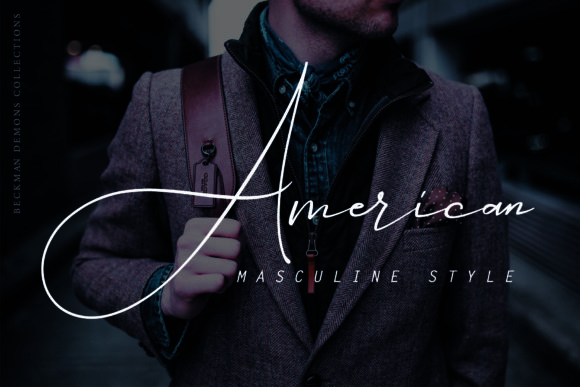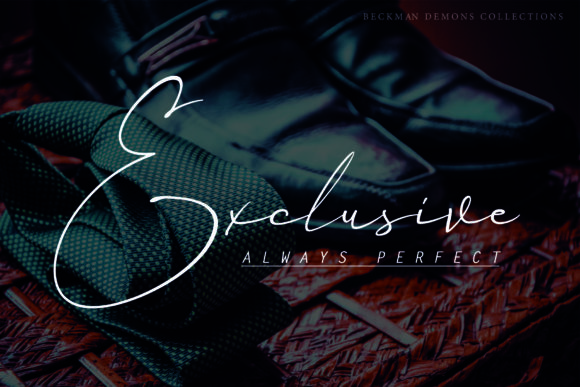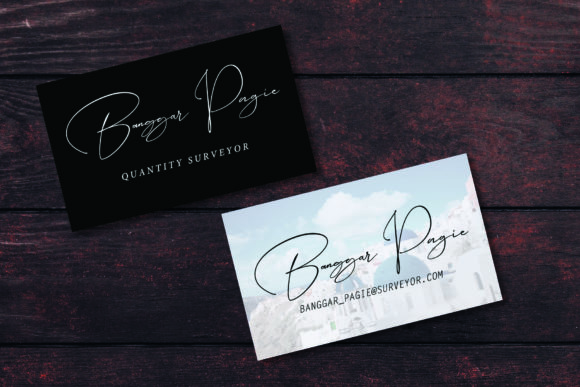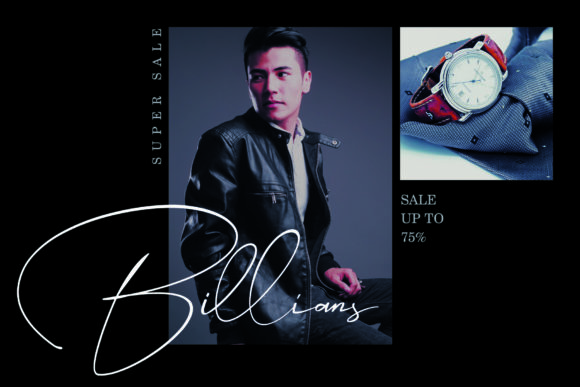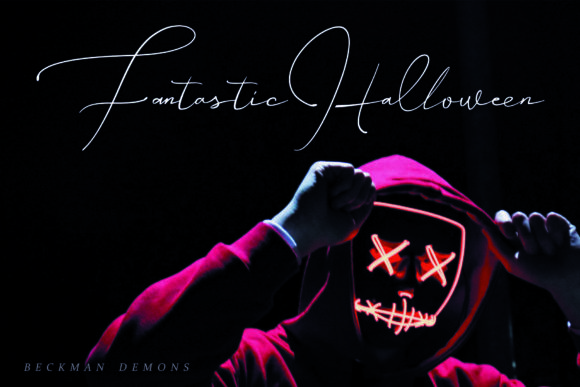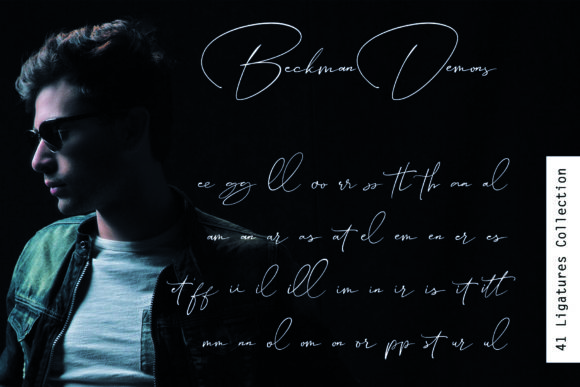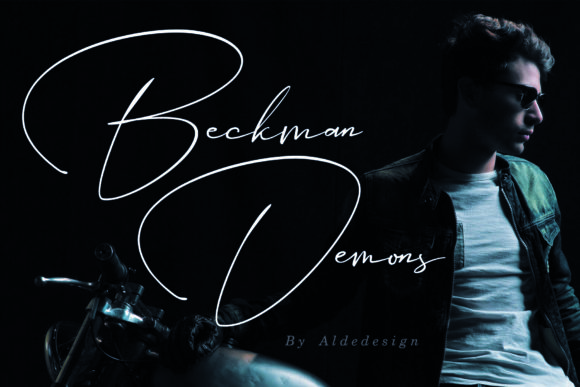
Beckman Demons Font: Elevate Your Designs with a Stylish Signature Style
In the world of design, fonts play a crucial role in conveying the tone and aesthetic of a brand or creative project. For those seeking a stylish and modern signature font, look no further than Beckman Demons. Inspired by the art of modern photography, this font is perfect for creating stunning watermarks, invitations, and branding designs that leave a lasting impression.
The Inspiration Behind Beckman Demons
Beckman Demons is a font that draws inspiration from the world of modern photography. With its sleek lines, bold curves, and artistic flair, this font embodies the spirit of creativity and sophistication. Whether you’re a photographer, designer, or crafty DIY enthusiast, Beckman Demons offers a unique and stylish way to add a personal touch to your work.
Key Features of Beckman Demons Font
So, what makes Beckman Demons stand out from the crowd? Here are some of its key features:
- Modern aesthetic: Beckman Demons boasts a fresh and contemporary look that’s perfect for designs that require a modern edge.
- Signature style: This font has a distinctive, handcrafted feel that’s ideal for creating watermarks, signatures, and other design elements that require a personal touch.
- High versatility: Beckman Demons can be used for a wide range of design applications, from photography and branding to invitations and more.
- Ease of use: This font is easy to read and works well in both digital and print formats.
Using Beckman Demons for Watermarking Photos
For photographers, a watermark is an essential tool for protecting your work and adding a professional touch to your images. Beckman Demons is an excellent choice for creating watermarks that are both stylish and effective. Here are some tips for using Beckman Demons for watermarking:
- Choose a subtle color: Select a color that complements your image without overpowering it.
- Experiment with sizes: Find the perfect size for your watermark, ensuring it’s large enough to be visible but not so large that it distracts from the image.
- Add a texture or effect: Consider adding a texture or effect to your watermark to give it a more organic, handcrafted feel.
Creating Invitations and Branding Designs with Beckman Demons
Beckman Demons is not just limited to watermarking photos; it’s also an excellent choice for creating invitations, branding designs, and other marketing materials. Here are some ideas for using Beckman Demons in your designs:
- Wedding invitations: Use Beckman Demons to create beautiful, custom wedding invitations that reflect the couple’s personal style.
- Business branding: Incorporate Beckman Demons into your business branding, including logos, letterheads, and packaging.
- Social media graphics: Use Beckman Demons to create eye-catching social media graphics that showcase your brand’s personality.
In conclusion, Beckman Demons is a stylish signature font that’s perfect for designers, photographers, and crafty DIY enthusiasts. With its modern aesthetic, high versatility, and ease of use, this font is ideal for creating stunning watermarks, invitations, and branding designs. Whether you’re looking to add a personal touch to your work or elevate your brand’s visual identity, Beckman Demons is an excellent choice.
Get Creative with Beckman Demons Font
Ready to unleash your creativity with Beckman Demons? Here are some final tips for getting the most out of this amazing font:
- Experiment with different colors and textures: Don’t be afraid to try out different colors and textures to find the perfect combination for your design.
- Play with font sizes and styles: Experiment with different font sizes and styles to add visual interest to your design.